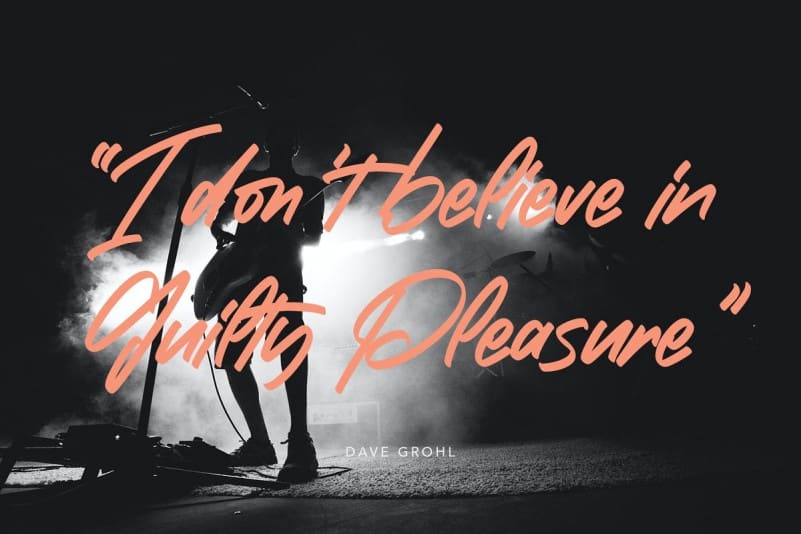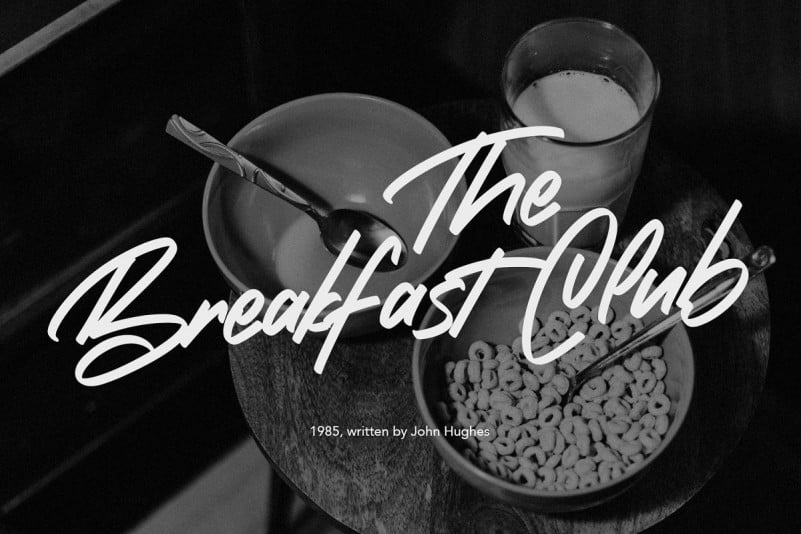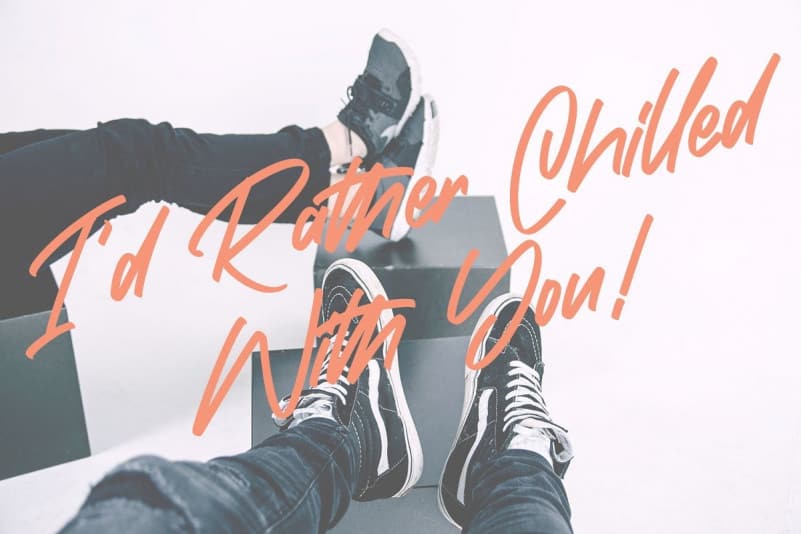
Rockerby Script Font
Rockerby Script Font – Are you looking for a handwriting? Or simply a nice typography for your collection. I would like to introduce you to a new free font, it is really perfect and clean. It’s designed by Maulana Creative. Give your designs an authentic handcrafted feel. It’s perfectly suited to signature, stationery, logo, typography quotes, magazine or book cover, website header, clothing, branding, packaging design and more.